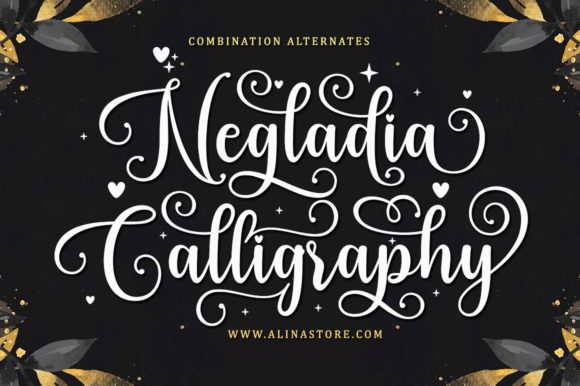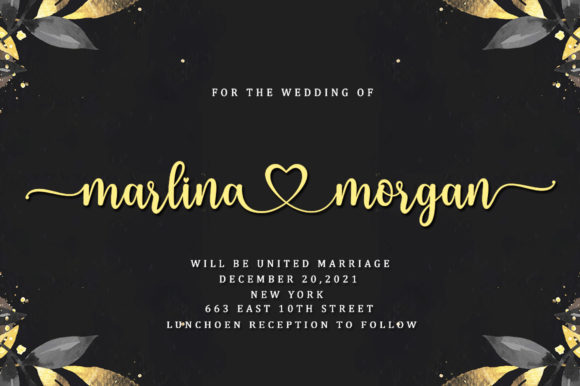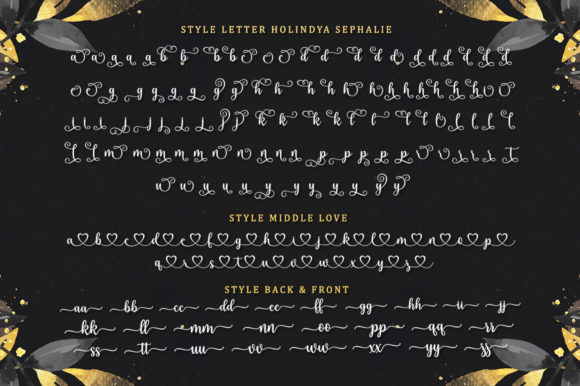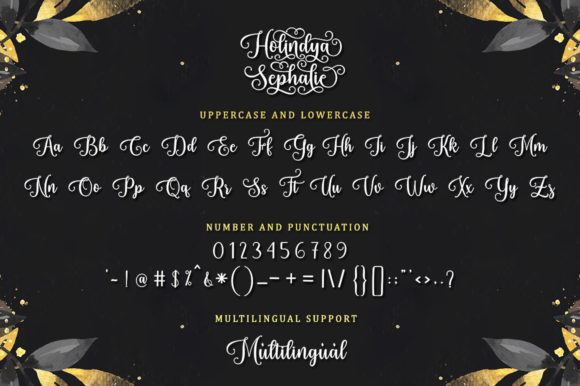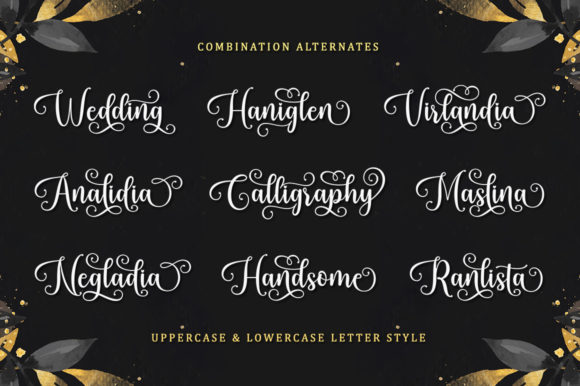
Holindya Sephalie Font – Free Download
Introduction to Holindya Sephalie Font
Holindya Sephalie is a royal and elegant script font.
It is suitable for any branding project like logos, t-shirt printing, sport designs, and more It will look outstanding in a wide range of contexts.
Key Features of Holindya Sephalie Font
Why Choose Holindya Sephalie Font?
Holindya Sephalie Font offers exceptional quality and versatility, making it a valuable addition to your design toolkit. Whether you’re creating for personal projects or commercial use, Holindya Sephalie Font delivers professional results.